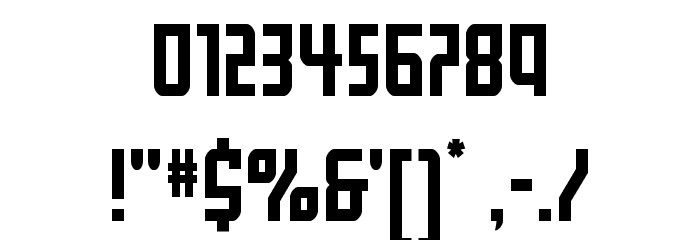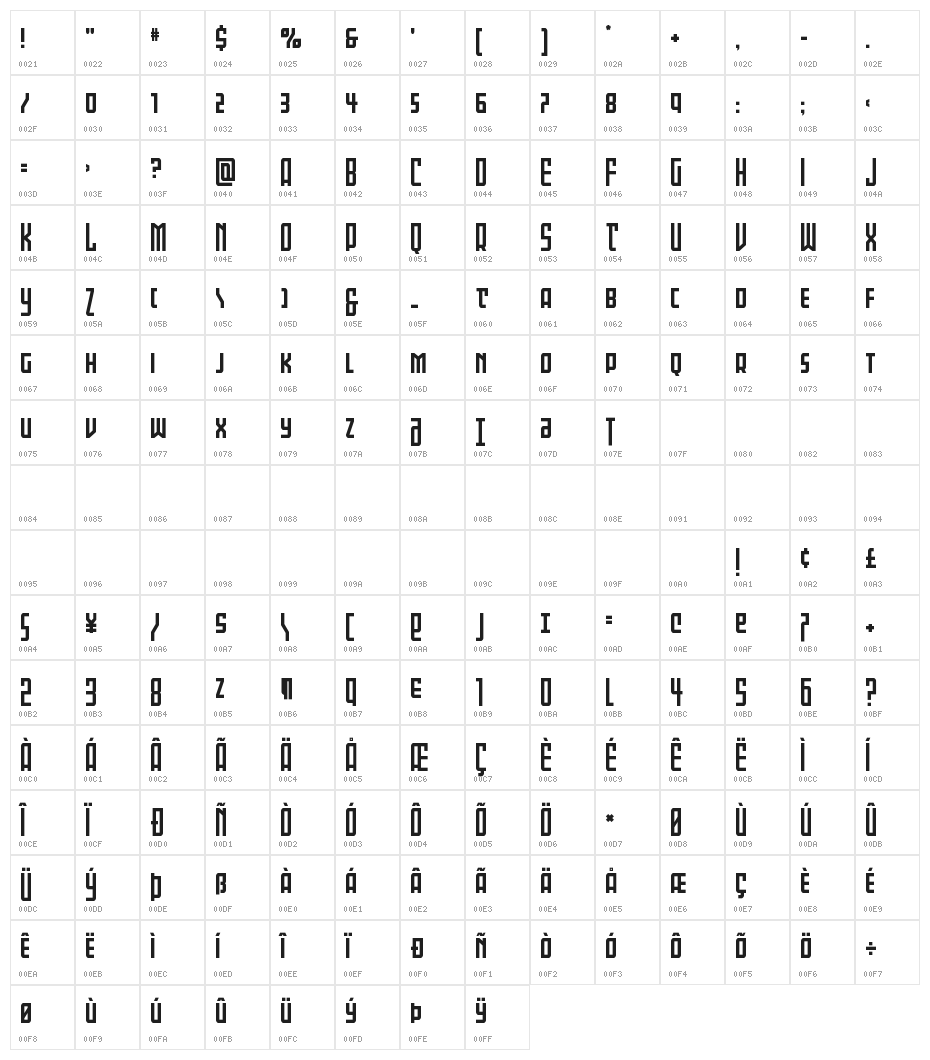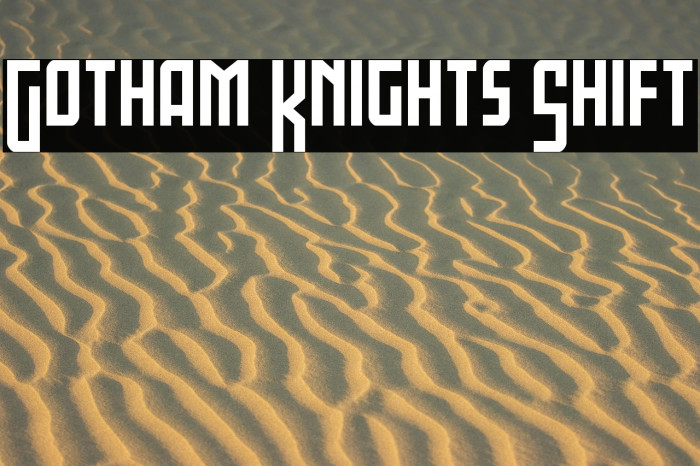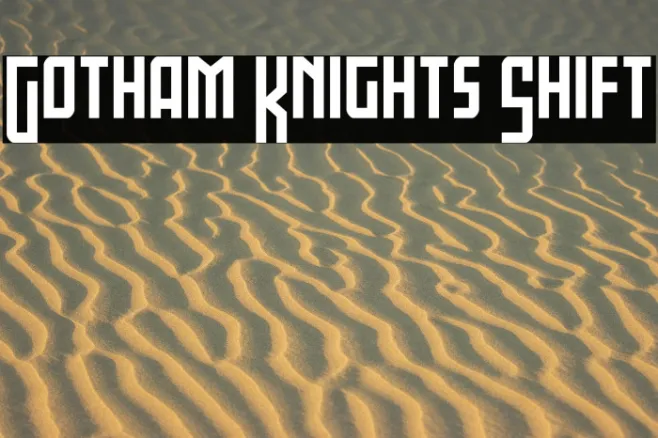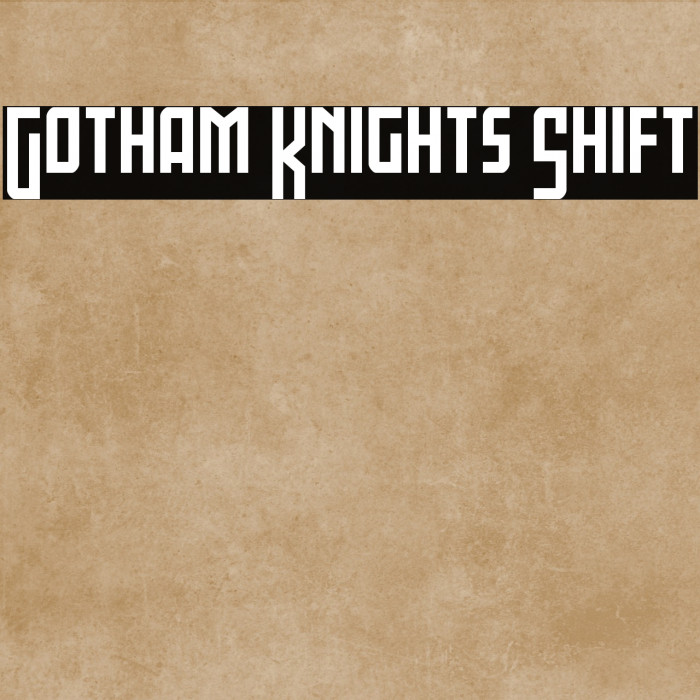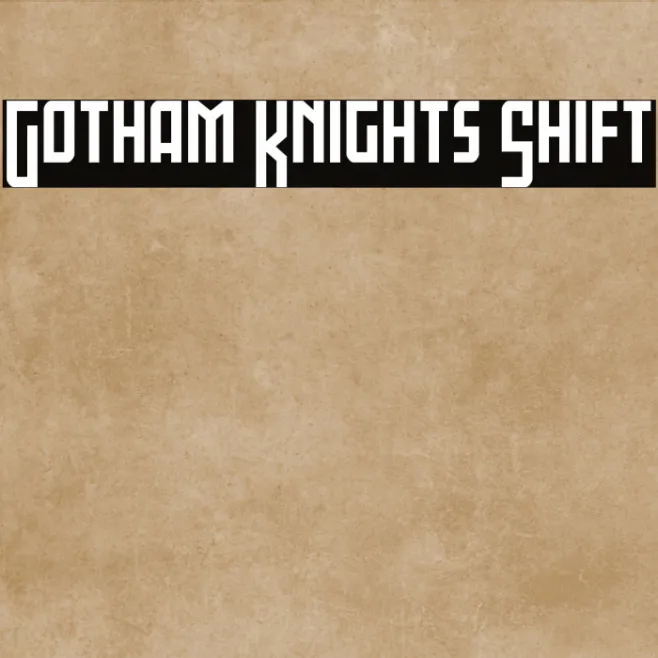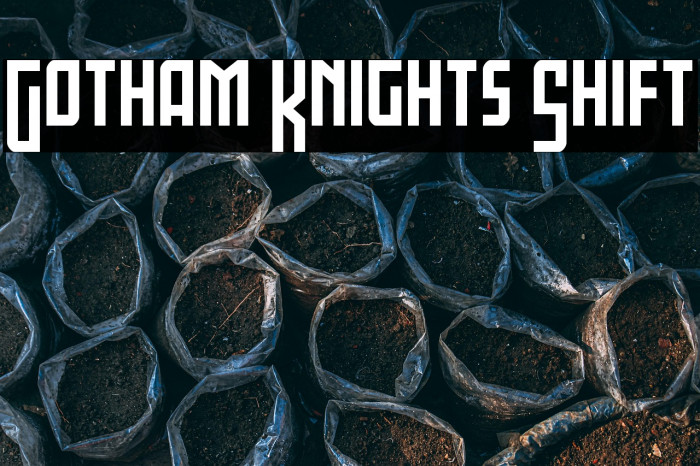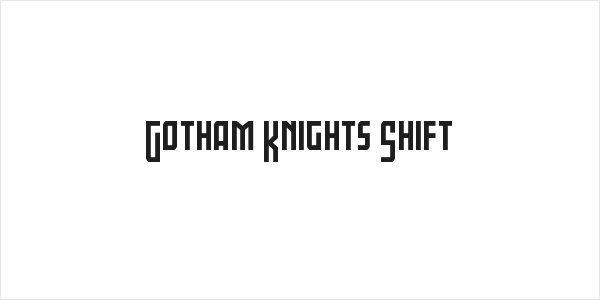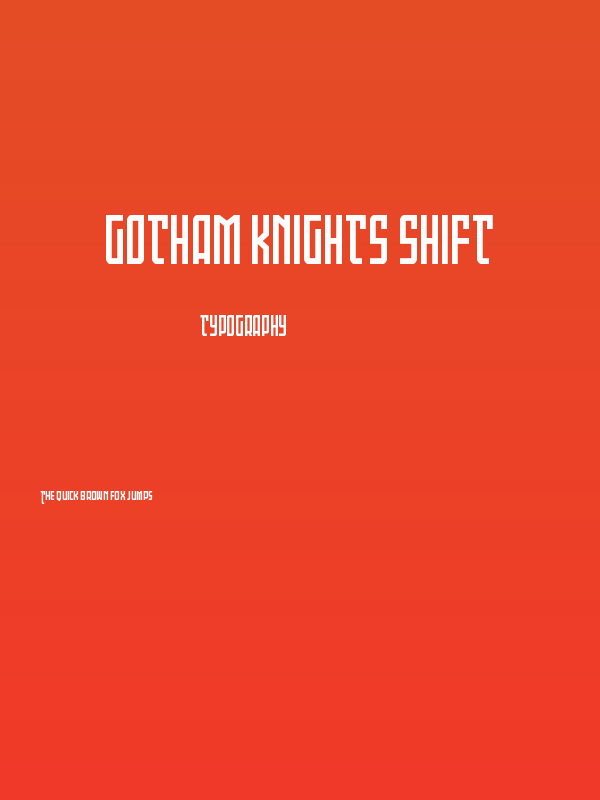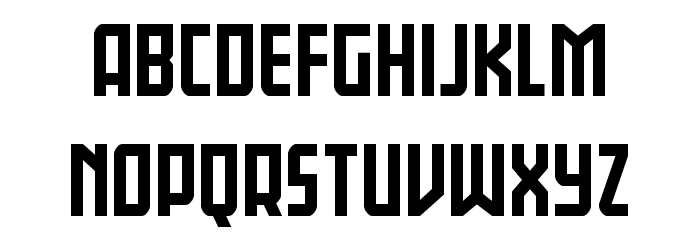
Gotham Knights Shift Font
Gotham Knights Shift Description
This font features a bold and geometric design, characterized by its strong, angular lines and uniform stroke width. The uppercase letters are tall and narrow, giving a condensed appearance, while the lowercase letters maintain a similar structure, ensuring consistency throughout. The numerals are equally bold and geometric, matching the style of the alphabet. Special characters are designed with the same angular and robust aesthetic, making them stand out. The overall look is modern and assertive, suitable for projects that require a strong visual impact.